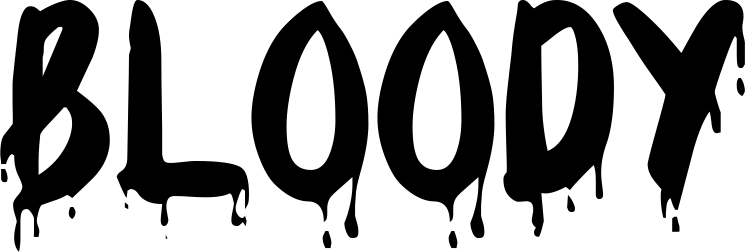
Bloody Font
Here is a rare horror font, but how will you benefit from it?! Bloody offers bold spooky characters that have drips leaking from them which is mysterious but interesting for the typography you are planning to create. This particular horror has a dirty and creepy feel.
This blood dripping font doesn’t contain lowercase letters but capital letters, numbers, and punctuations are available for Bloody. It’s an excellent choice for Halloween books, packaging, clothing, posters, or adverts. It freaks you out, doesn’t it?!